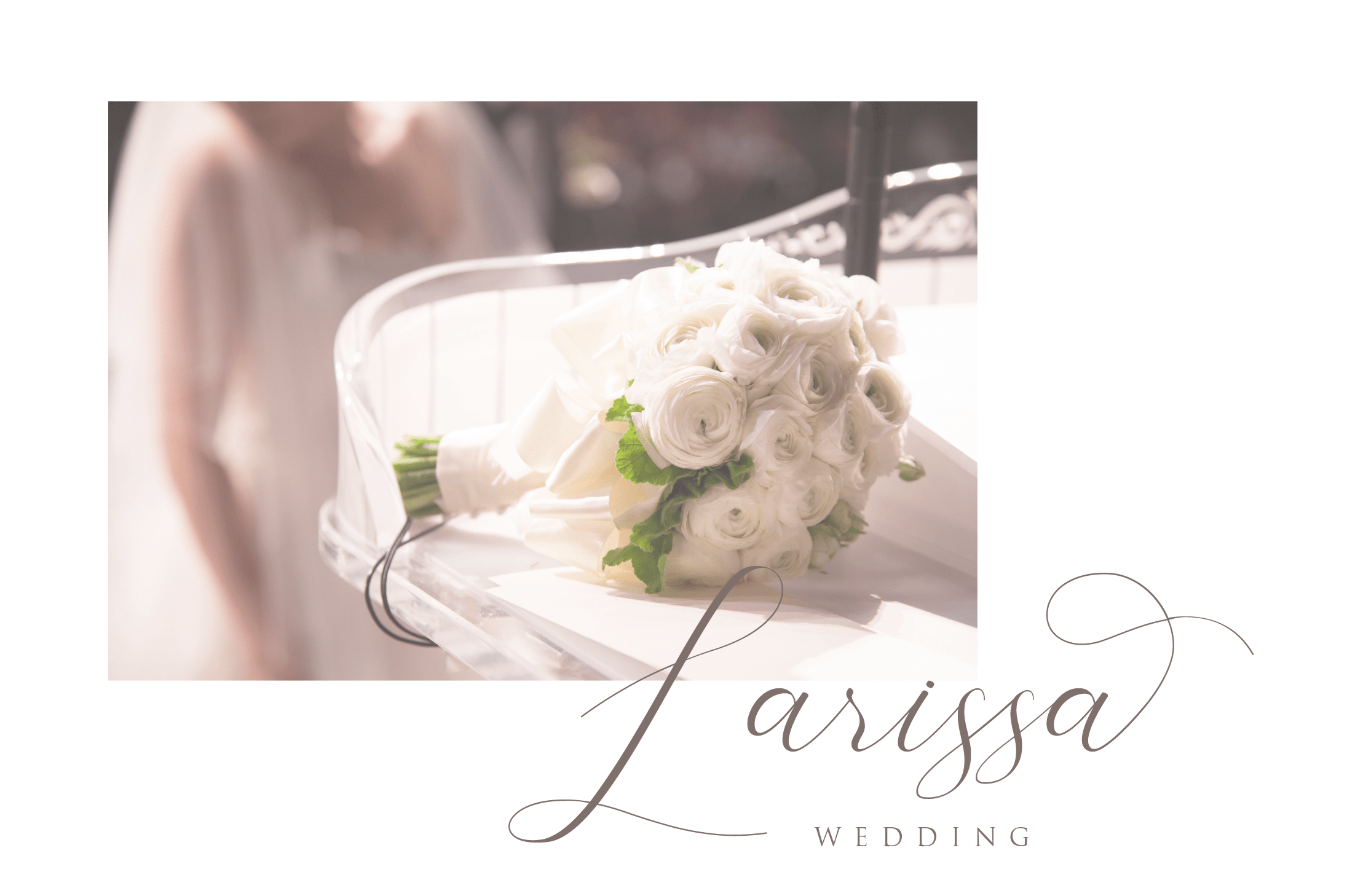
Bathey Calligraphy Font
This is a model of modern calligraphy typefaces, in combination with a calligraphy writing style, have strong personalities and work very well in many design projects. Introducing Bathey Font. Bathey designed and shared by End co. Samantha Signature is a signature font that you can use to make a design for logo branding, poster headline, magazines, book titles, business cards, beautiful fashion designs, advertisements, product designs, wedding invitation, signature or handwritten quote.